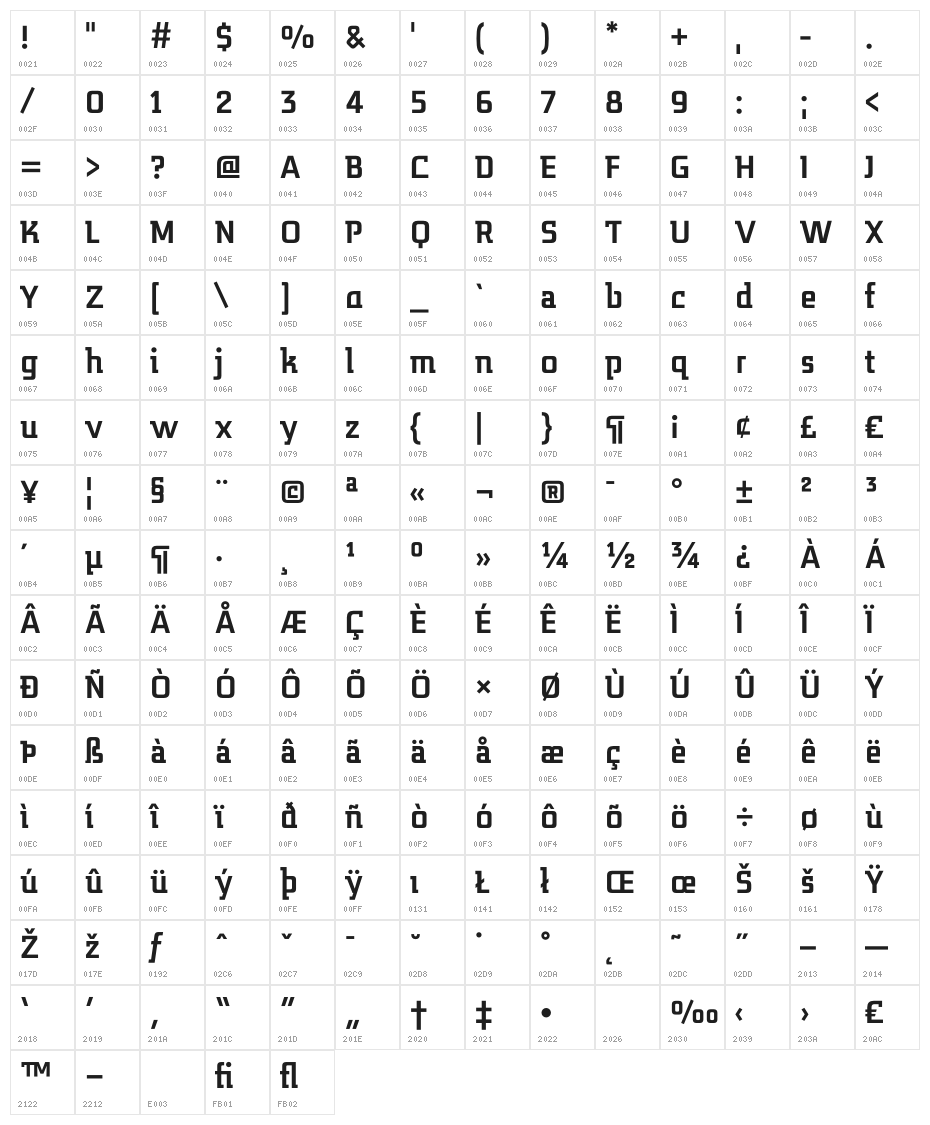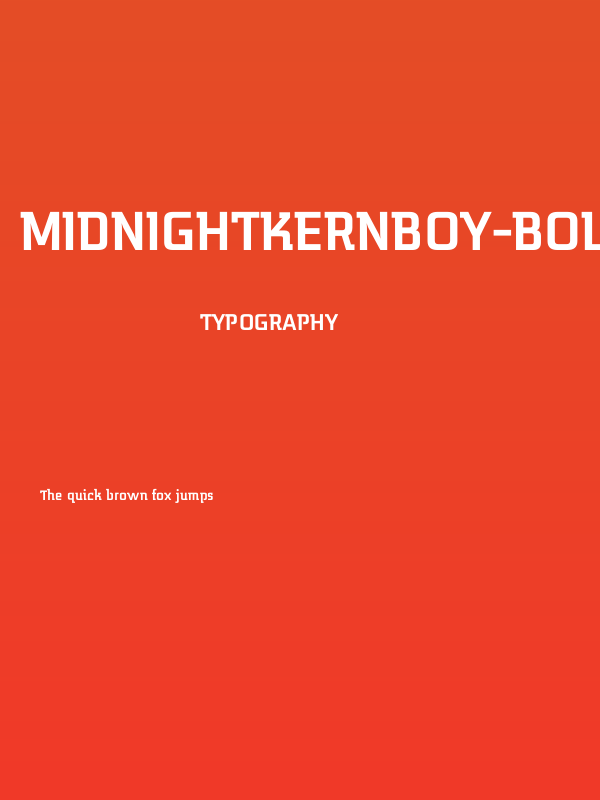
MidnightKernboy-Bold Font
MidnightKernboy-Bold Description
This font features a bold and robust design, characterized by its strong geometric shapes and clean lines. The uppercase letters are uniform in height, with a slight angularity that adds a modern touch. The lowercase letters maintain a consistent style, with rounded edges that soften the overall appearance. The numerals are clear and legible, matching the boldness of the alphabet. Special characters are well-integrated, maintaining the font's cohesive look. This typeface is versatile, suitable for a range of design applications where a strong, impactful presence is desired.
| Proposed Projects | Ideal for branding, headlines, posters, and digital media where a strong visual impact is needed. |